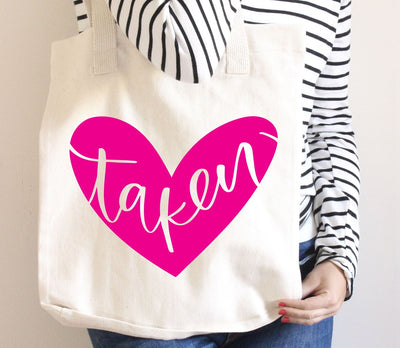
Heart Taken Valentine SVG File
This cute Taken Valentine or Wedding SVG File with a heart is ideal for crafting fun valentine projects. Our Heart SVG design features the hand lettered look and uses a heart tattoo style design for you to create home decor and gifts for your Valentine.